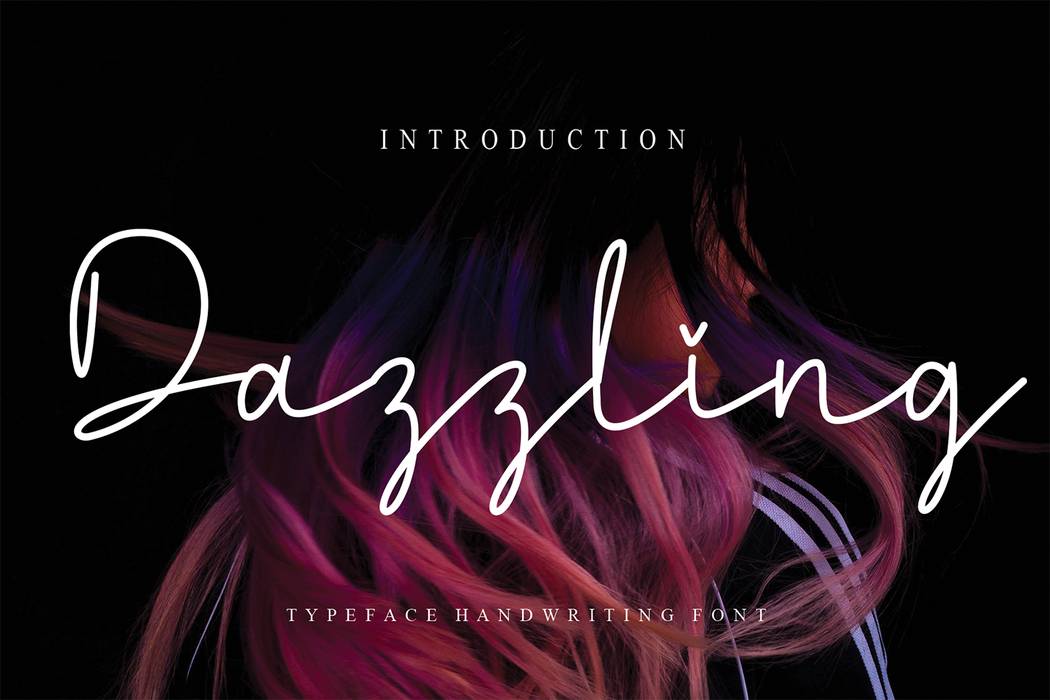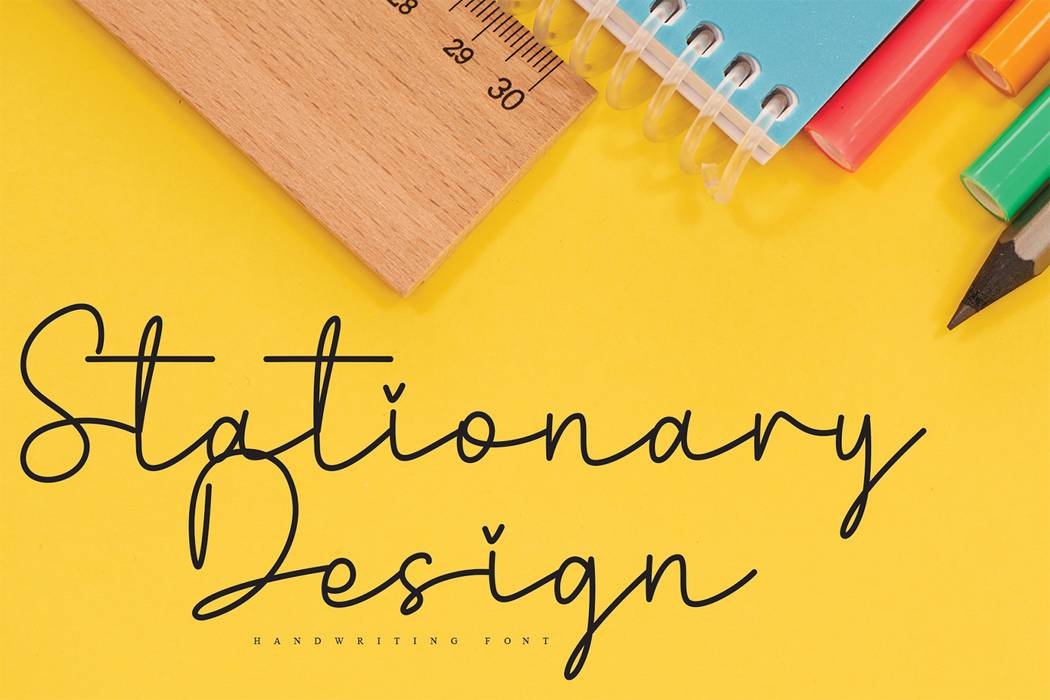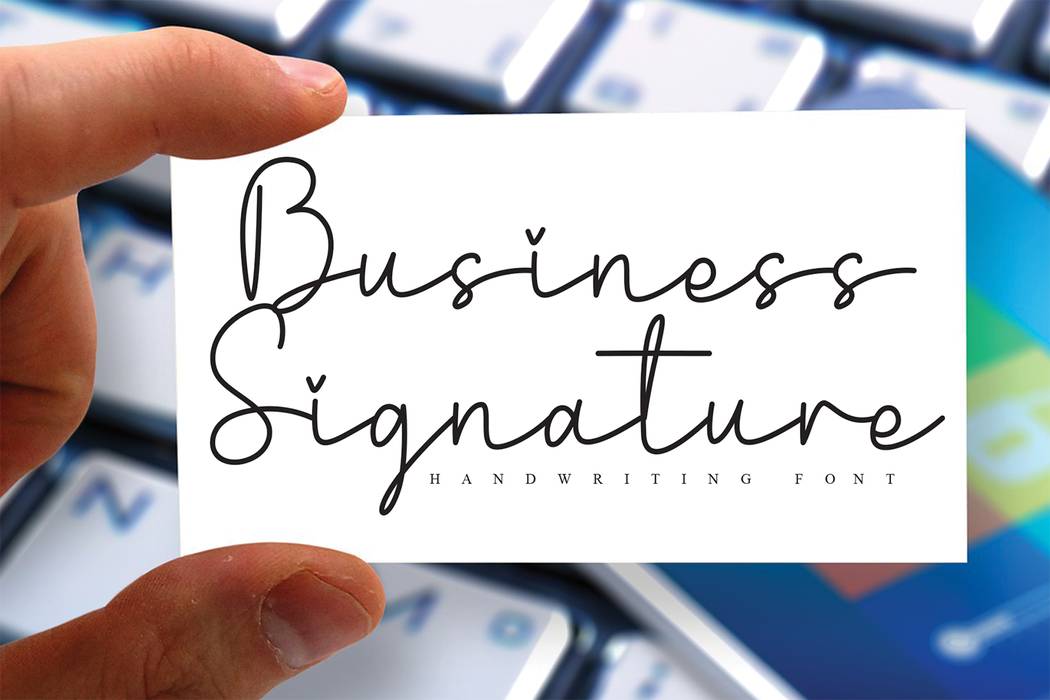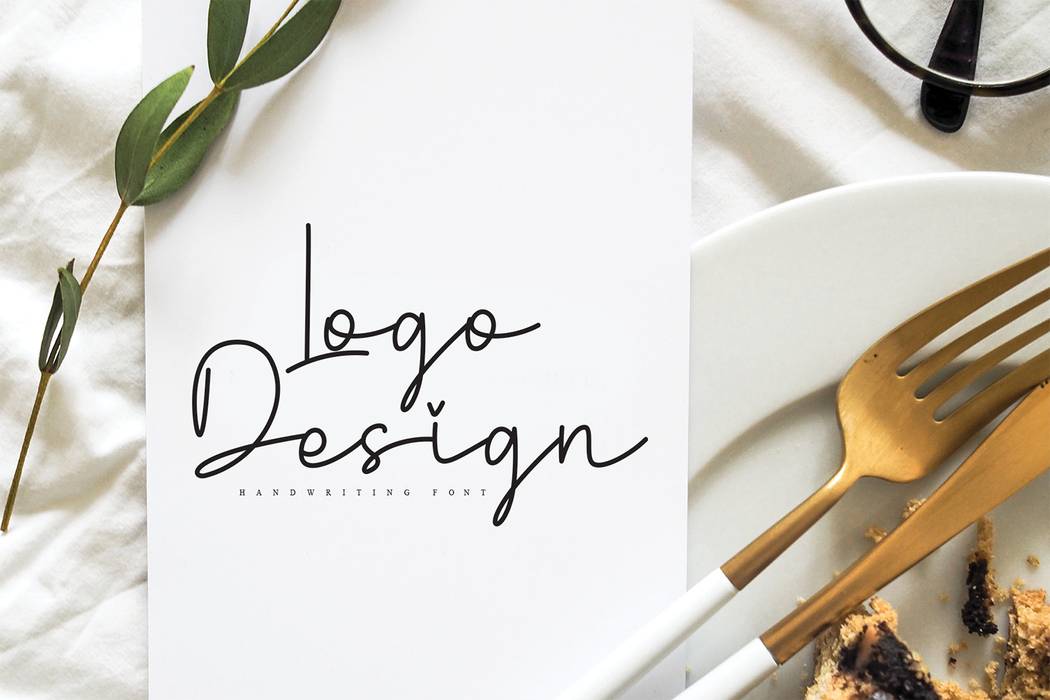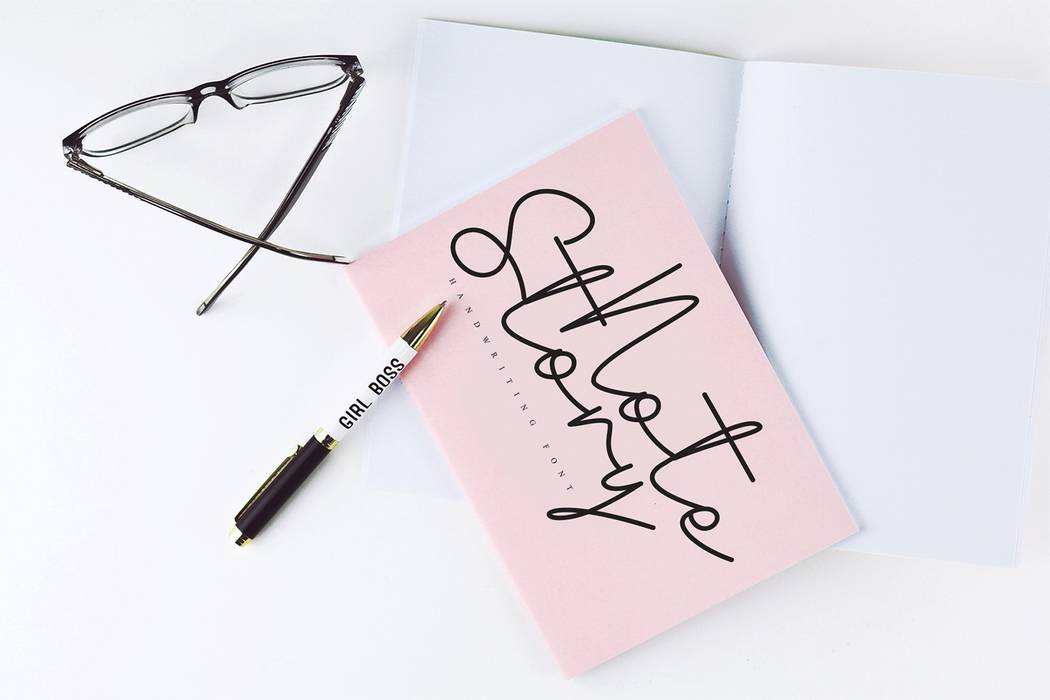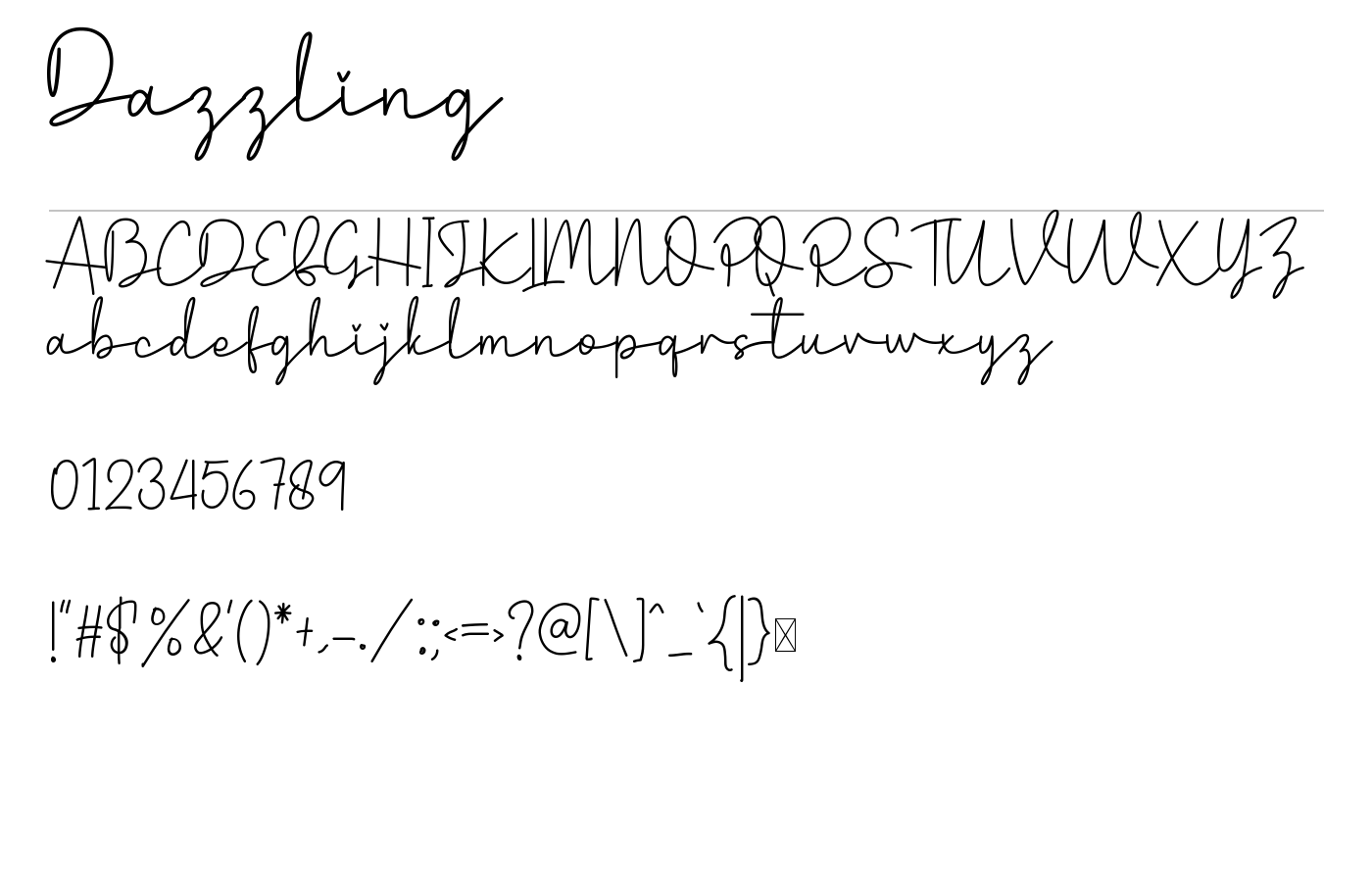
Dazzling Font is a delicate, hand-drawn script with a light weight and airy feel, characterized by its tall, slender letterforms and playful loops and hearts. This font combines a casual elegance with a whimsical personality, making it perfect for invitations, greeting cards, and creative branding that seeks a friendly, personal touch. Its unique style works best in headlines or decorative uses, adding charm and individuality to any design.
Dazzling Font
About Dazzling Font